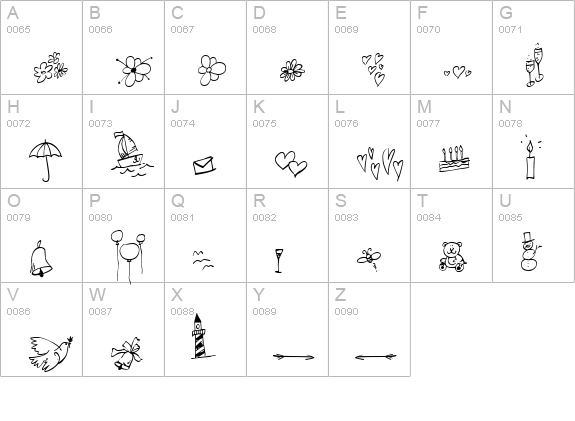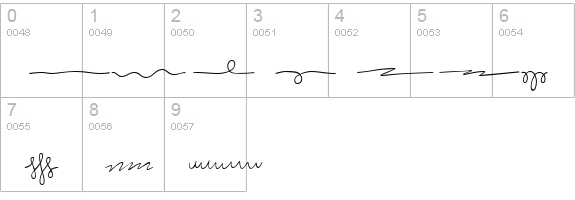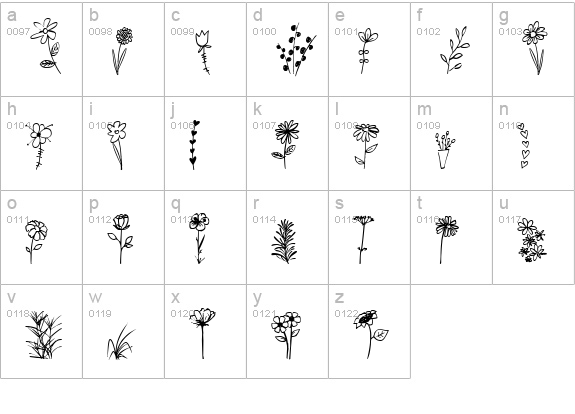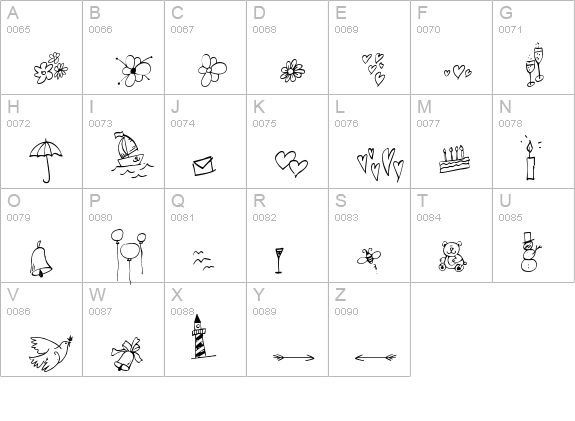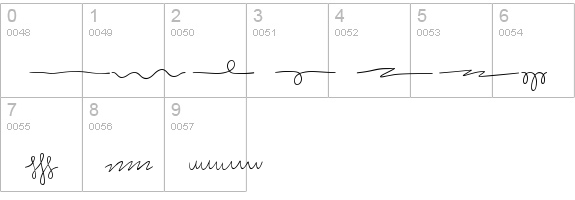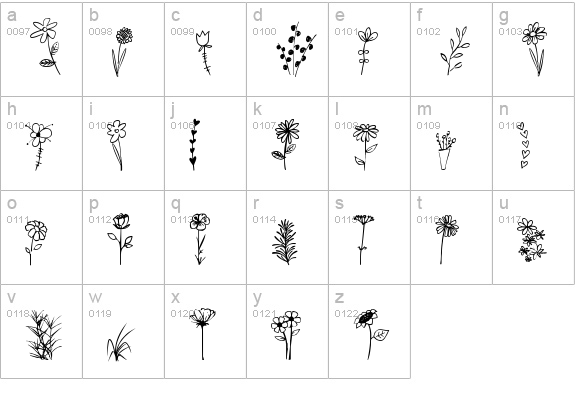
JasminumExtra Font Details
JasminumExtra is a stunning and elegant font that exudes sophistication and charm. With its delicate curves and stylish design, this font is perfect for adding a touch of class to any project. Whether you are designing invitations, logos, or branding materials, JasminumExtra will elevate your work to the next level. What sets JasminumExtra apart is not only its beauty but also the fact that it is completely free to use. Yes, you read that right - this amazing font is available for free download at FontsMarket.com. So go ahead and add JasminumExtra to your font collection today and see the magic it brings to your designs.